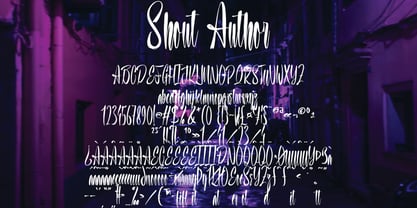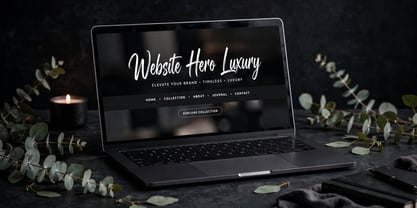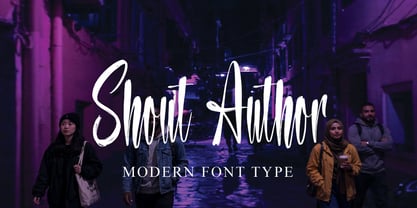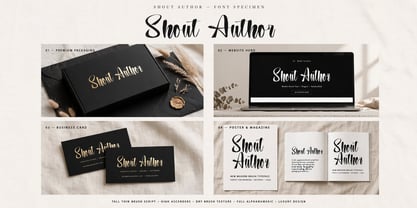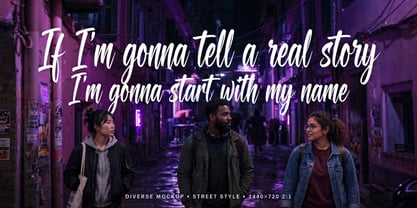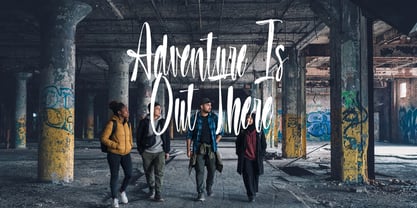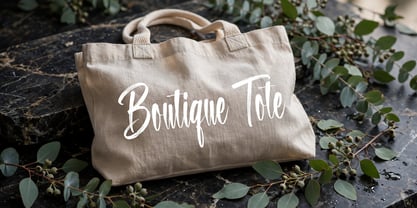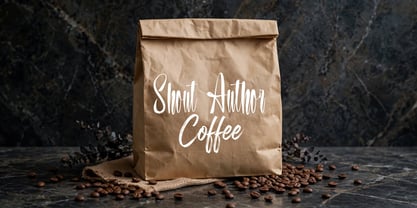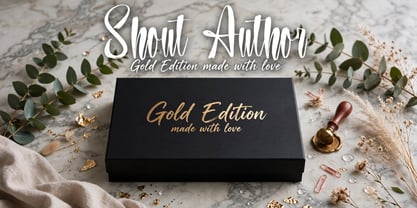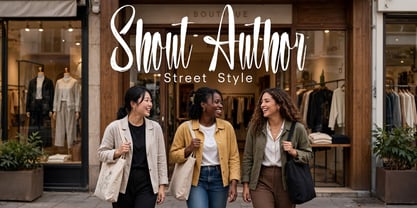
Shout Author
The Shout Author Font Family was designed by Dhoni Trihatmoko and published by Ayska. Shout Author contains 1 styles. More about this family
Welcome to the world of Shout Author, an enthralling calligraphy font uniquely designed with a modern flair. Each stroke of this typeface is expertly handcrafted, adding an effortless touch of elegance to everything from greeting cards and business cards to memorable branding materials.
Each stylistic flourish and sophisticated curve of Shout Author brims with charisma, making it the ideal choice for your wedding postcards, turning every sentiment into a work of art. This versatile font also adds a remarkable transformation to your logo, stationery, blog posts and marketing materials, not to mention print media such as magazines.
If you are looking to make a statement, Shout Author empowers you to craft singular, flawless designs that are certain to rise above the ordinary. So, immerse yourself in the captivating charm of Shout Author, and turn your creative visions into visually stunning realities.